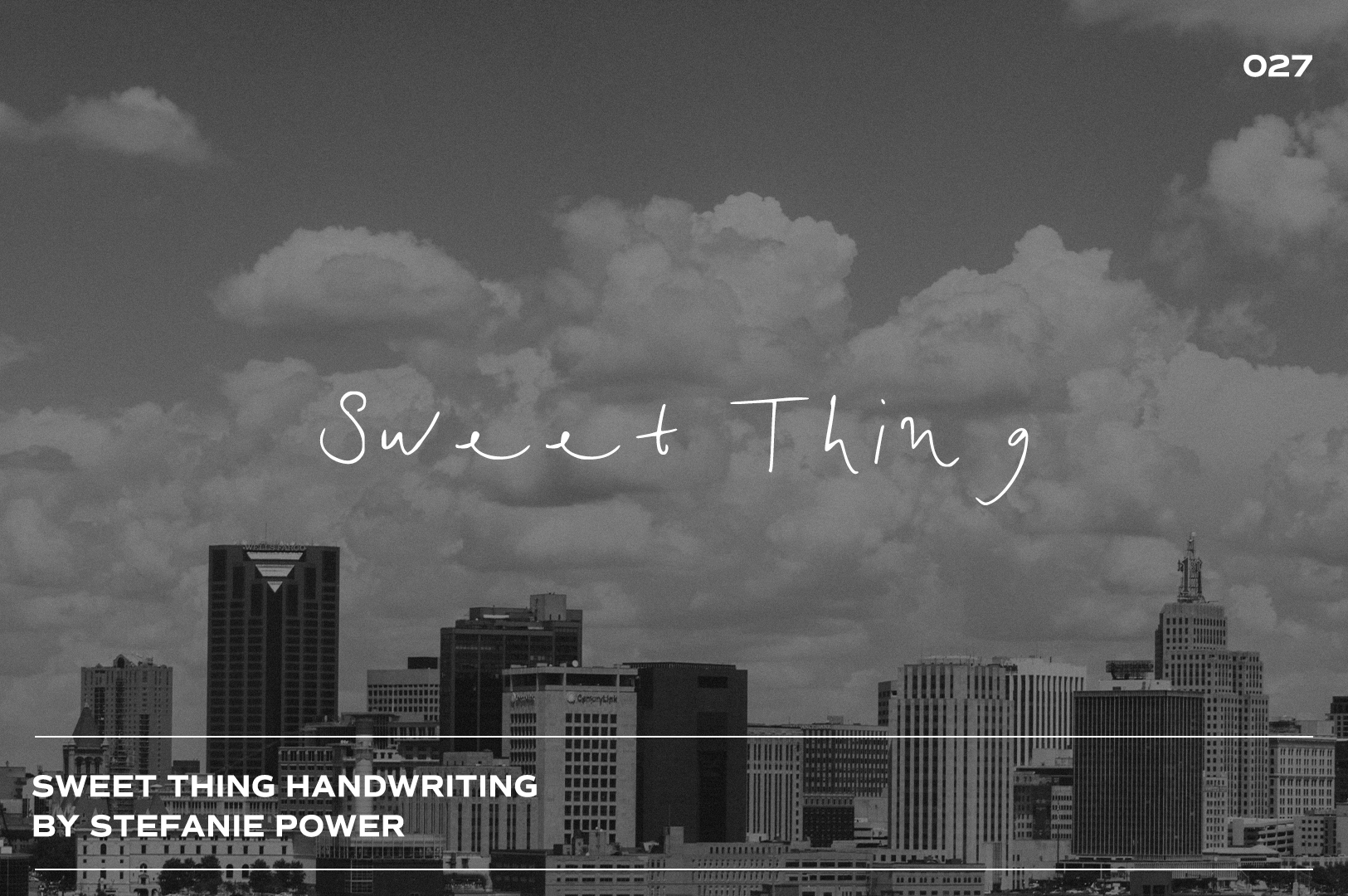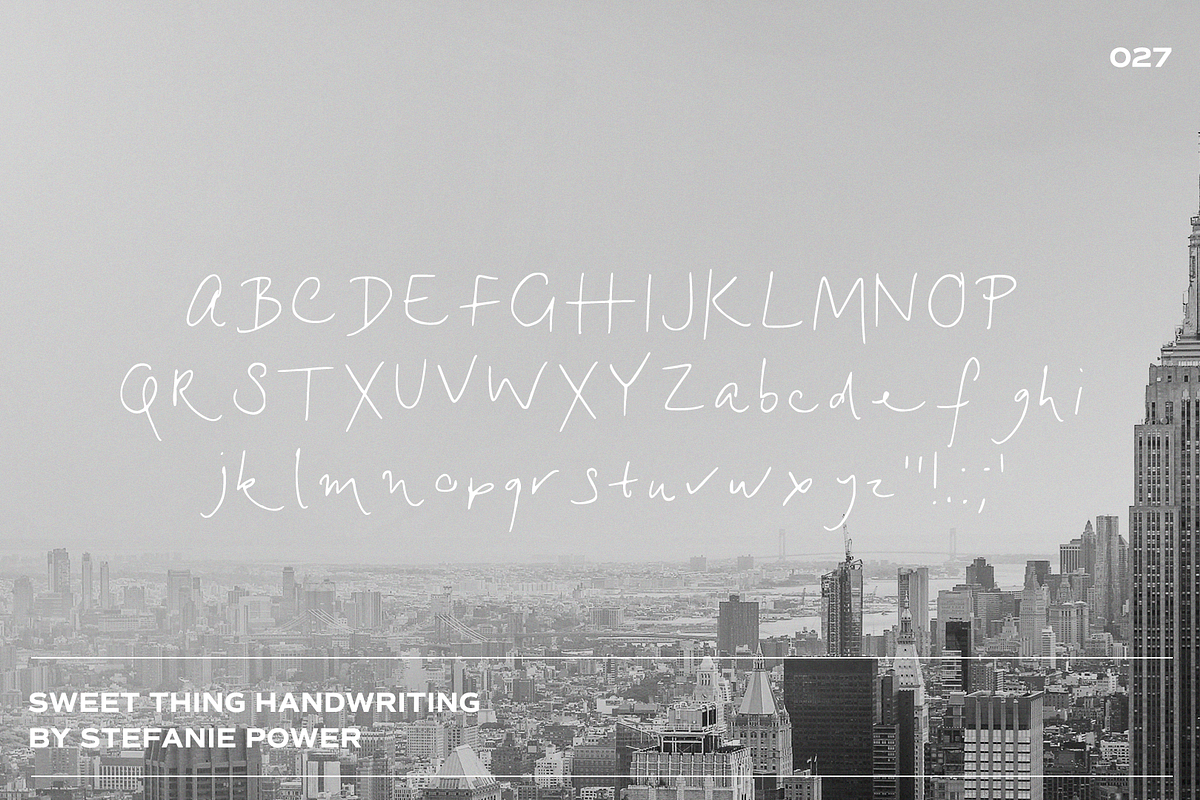
Sweet Thing Handwriting | Font
Introducing 'Sweet Thing' - a sweet and dainty handwritten font.
Sweet Thing • A handwritten script font containing upper & lowercase characters and a range of punctuation and numbers.